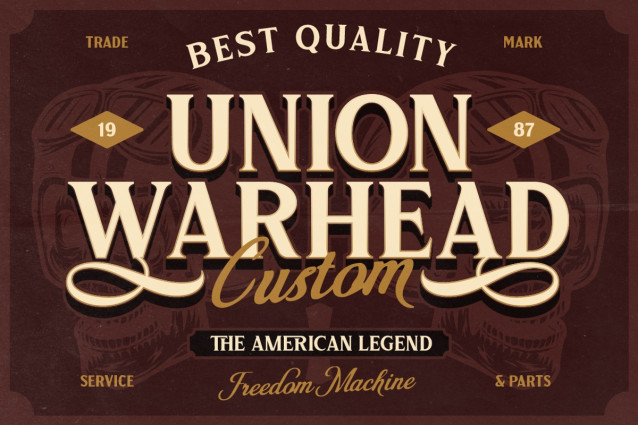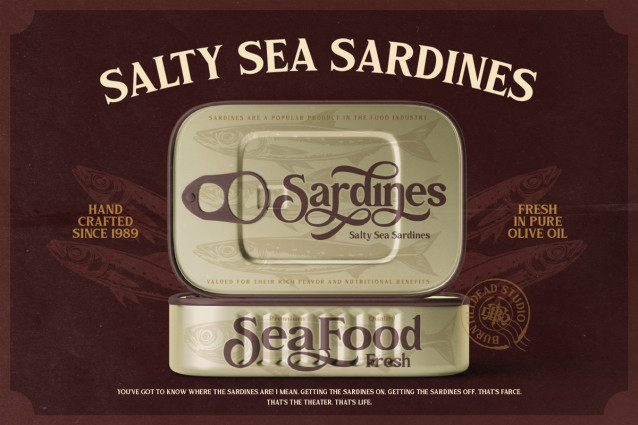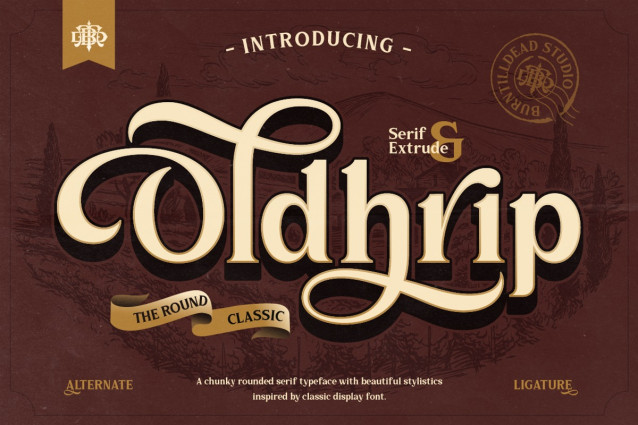
Meet Oldhrip, a rounded serif typeface with beautiful stylistic details inspired by classic display fonts. Featuring soft, round curves combined with bold, sturdy strokes, Oldhrip brings a warm vintage character that still feels clean and highly readable.
This font comes in two styles — Regular and Extrude — giving you flexibility from elegant serif branding to bold dimensional display lettering. Complete with alternate characters and elegant ligatures, Oldhrip lets you create unique, hand-crafted looking compositions without any manual editing.
Perfect for creating a classic, premium, and timeless impression on any design project.
Perfect For:
- Logo & Branding
- Wine & Beverage Labels
- Vintage Product Packaging
- Wedding Invitations
- Apparel & Merchandise Design
- Signage & Posters
- Social Media Graphics
Features: